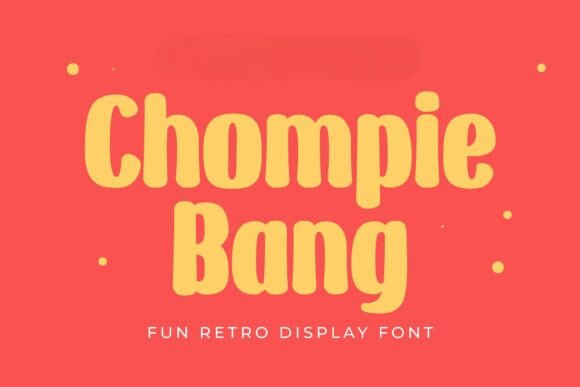
Introducing Chompie Bang Font: The Ultimate Fun Retro Display Font
Are you tired of using the same old fonts for your designs? Look no further! Chompie Bang Font is here to revolutionize the way you create fun and engaging content. This bold, rounded display font is designed to make your message stand out with a dash of charm and personality.
The Characteristics of Chompie Bang Font
Chompie Bang Font boasts thick strokes and soft curves, giving it an approachable and cheerful feel that’s perfect for a variety of design projects. Its unique combination of boldness and rounded edges makes it an excellent choice for:
- Children’s content: Create engaging and fun stories, educational materials, and activity sheets that kids will love.
- Toy packaging: Add a burst of friendliness and excitement to your product packaging and make it stand out on store shelves.
- Birthday invitations: Make your party invites truly special with a font that’s sure to bring a smile to your guests’ faces.
- Quirky headlines: Add a touch of whimsy to your blog posts, articles, or social media graphics and make them impossible to ignore.
Why Choose Chompie Bang Font?
So, what sets Chompie Bang Font apart from other display fonts? Here are just a few reasons why designers and crafters love this lovable typeface:
- Friendliness: Chompie Bang Font exudes warmth and approachability, making it perfect for designs that need a personal touch.
- Impact: The bold strokes and rounded edges of this font ensure that your message will be seen and remembered.
- Versatility: Use Chompie Bang Font for a wide range of projects, from digital designs to print materials.
- Fun: Let’s face it – this font is just plain fun! It’s sure to bring a smile to your audience’s faces and make your designs more engaging.
How to Use Chompie Bang Font in Your Designs
Ready to add Chompie Bang Font to your design toolkit? Here are some tips for getting the most out of this amazing font:
- Pair it with other fonts: Combine Chompie Bang Font with complementary fonts to create visually appealing and engaging designs.
- Experiment with colors: Try out different color schemes to find the perfect match for your design and audience.
- Play with sizes: Use Chompie Bang Font in a variety of sizes to create visual interest and hierarchy in your designs.
Chompie Bang Font is a game-changer for designers and crafters looking to add a dash of fun and personality to their work. With its bold, rounded design and approachable feel, this font is perfect for a wide range of projects. So why wait? Download Chompie Bang Font today and start creating engaging, memorable designs that will leave a lasting impression on your audience!
Whether you’re a seasoned designer or just starting out, Chompie Bang Font is sure to become a favorite in your toolkit. Its unique blend of friendliness, impact, and versatility makes it an excellent choice for any design project. So go ahead, get creative, and have fun with Chompie Bang Font!